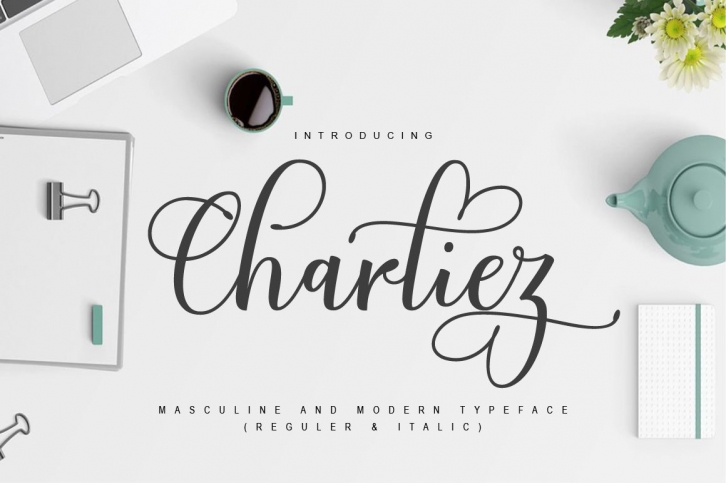
Hi ... Introducing the latest Charliez Script style with modern hand scratches, I hope you are interested in this font, if you want to use it for your work, this font can be used easily and simply because there are many features in it containing a full set of letters small and large, various kinds of punctuation, numbers, and multilingual support. The font also contains several alternative styles and Stylistic Sets for those of you who have software that is able to work OpenType (Photoshop / Illustrator / InDesign).
Charliez Script is suitable for market designs that are currently being developed, this font has a Trendy, natural and soft model, with this font you can take advantage of opportunities at every moment in one extraordinary way to highlight your party celebrations. best, because this font will be a support for purposes such as wedding invitations, parties, graduations, birthdays, meetings, etc.